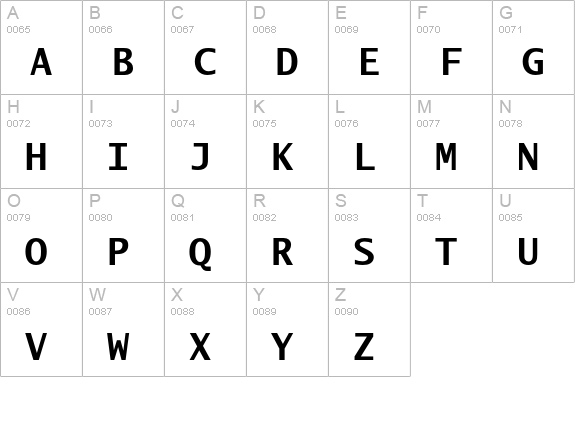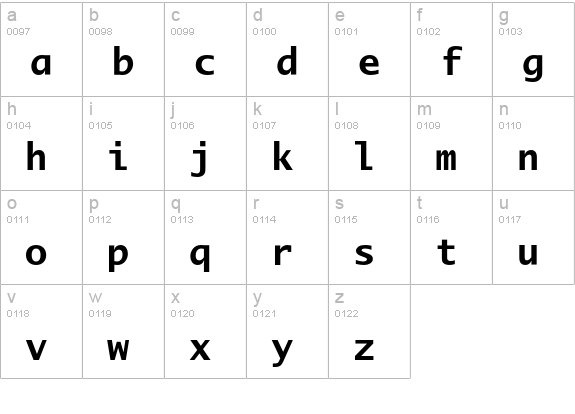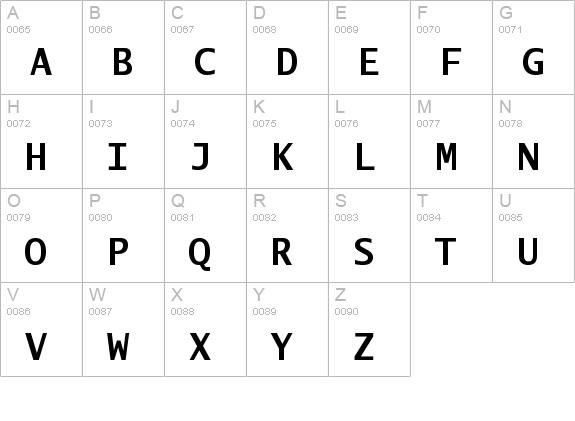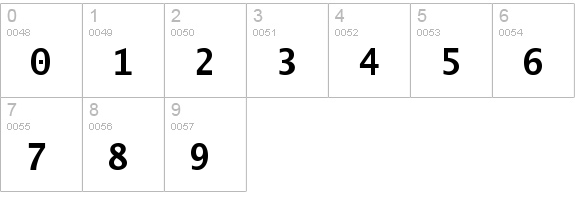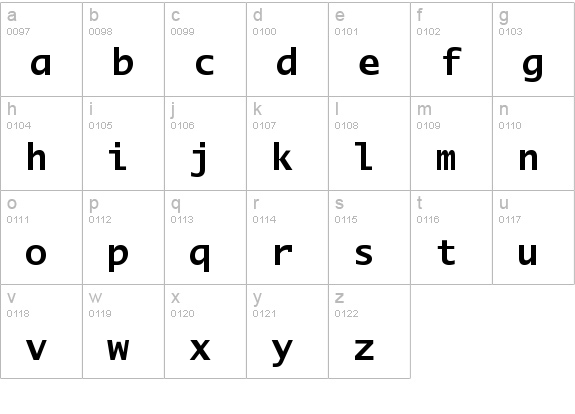
LucidaMonoEF-Bold is a strong, high-contrast variant in the LucidaMonoEF typeface family \xE2\x80\x94 well suited to headlines, attention-grabbing titles, and strong calls-to-action.
LucidaMonoEF-Bold is a modern and sleek font that exudes confidence and sophistication. With its bold weight and strong presence, this typeface is perfect for making a statement in any design project. Whether you're creating a striking headline or emphasizing important information, LucidaMonoEF-Bold is sure to capture attention and leave a lasting impression. The best part? LucidaMonoEF-Bold is available for free download at FontsMarket.com, making it easily accessible for designers and creatives looking to elevate their work with a high-quality, professional font. So go ahead, enhance your designs with the bold and impactful style of LucidaMonoEF-Bold – the perfect choice for projects that demand attention and stand out from the crowd.